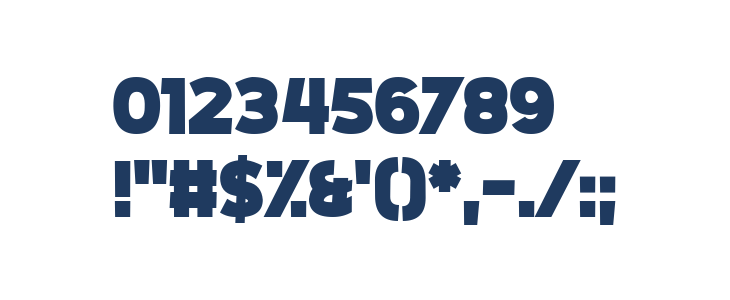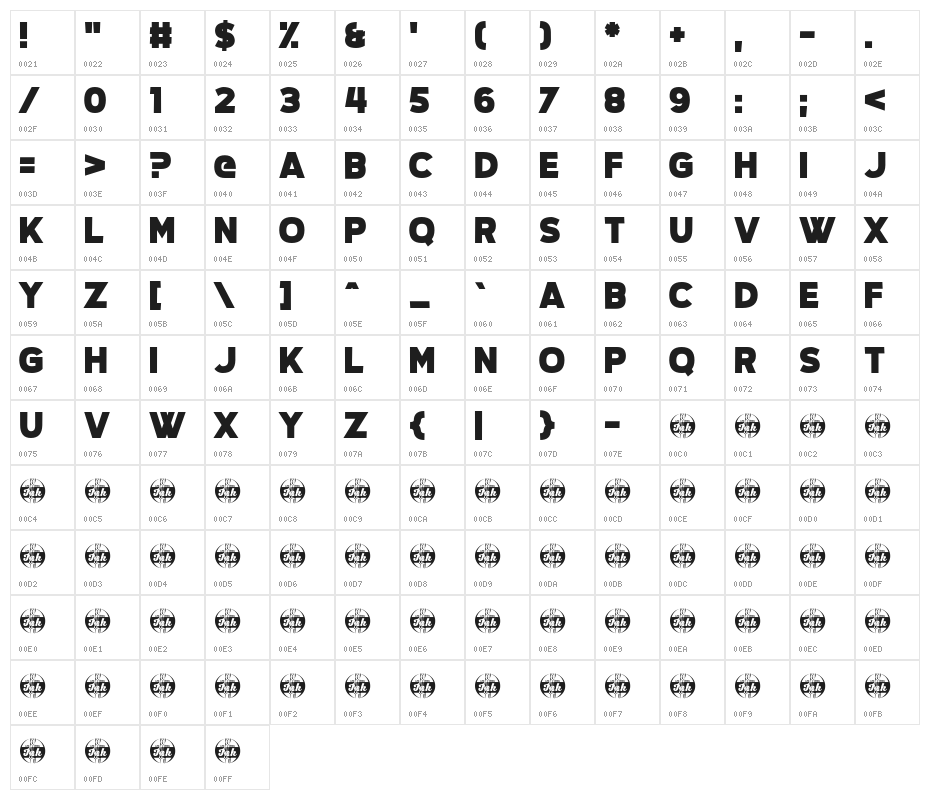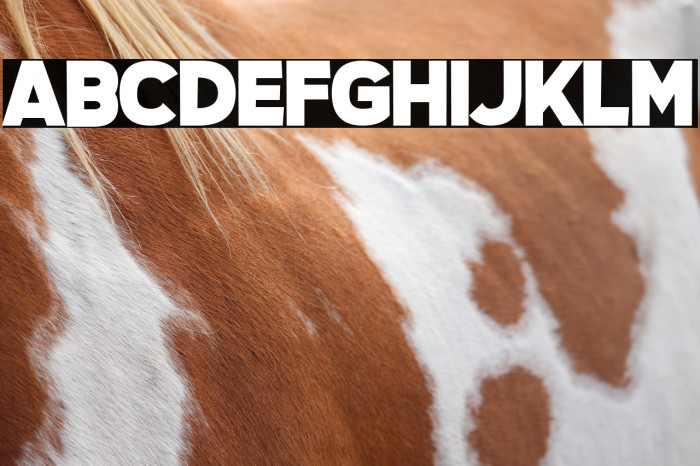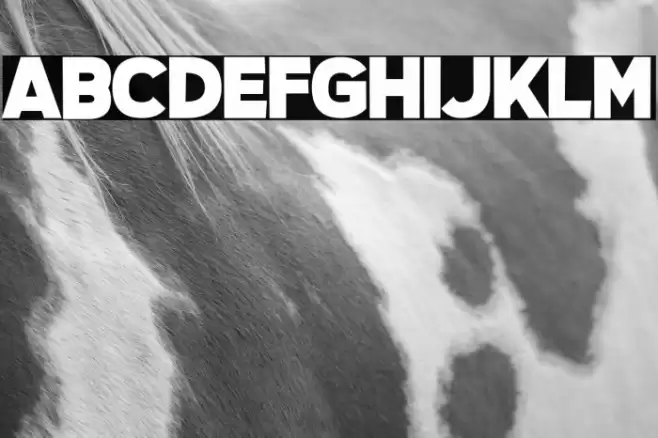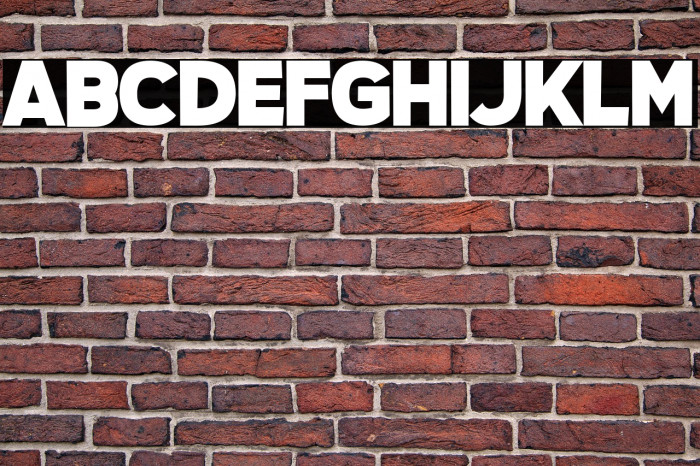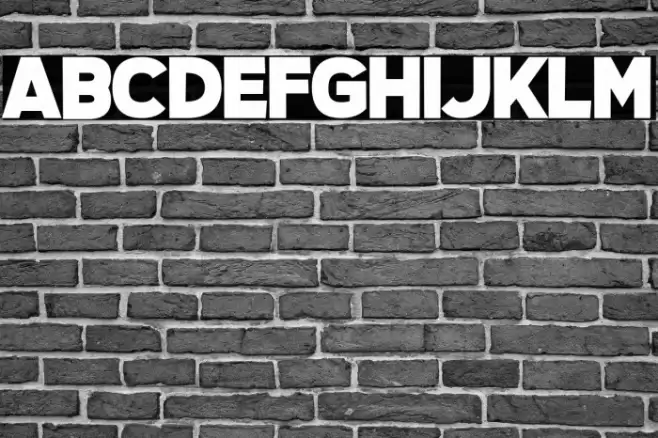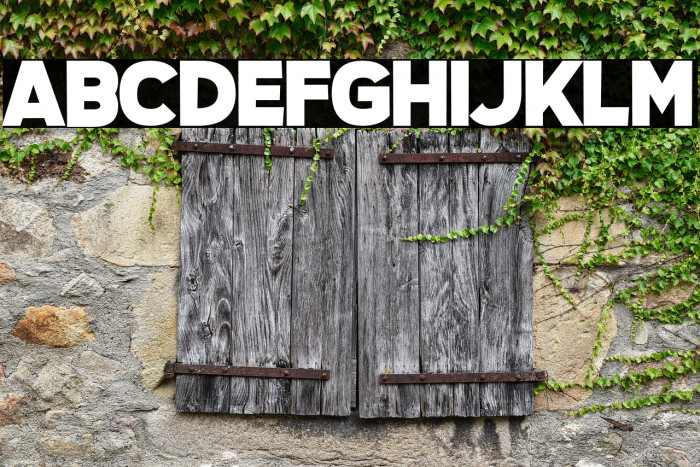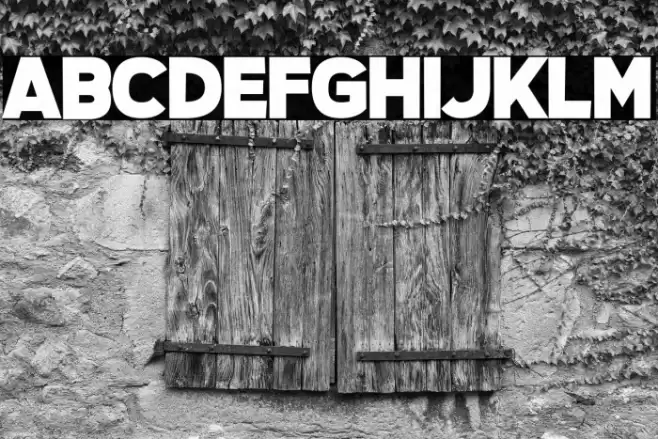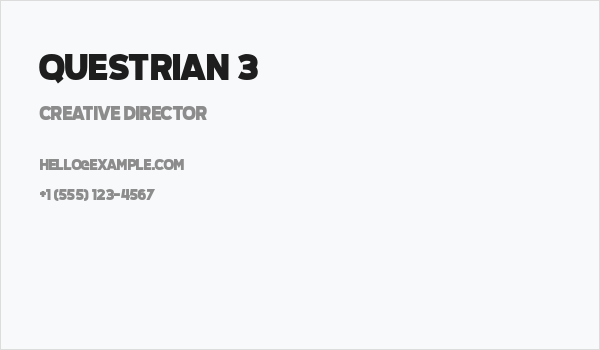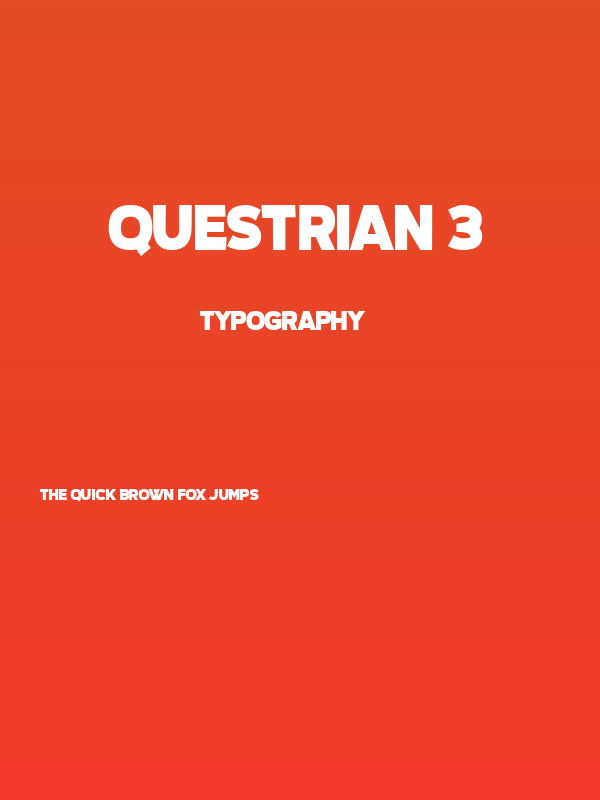
Questrian 3 Font
Questrian 3 Description
This font is characterized by its bold, geometric design with strong, clean lines and a modern aesthetic. The uppercase letters are uniform in height, creating a cohesive and balanced appearance. The numerals and special characters maintain the same boldness, ensuring consistency across all glyphs. The font's design is straightforward, with minimal decorative elements, focusing on clarity and impact. Its thick strokes and solid structure make it highly legible, even at smaller sizes, while the boldness adds a commanding presence in larger formats.
| Proposed Projects | Ideal for branding, headlines, posters, and any project requiring a strong visual impact. |